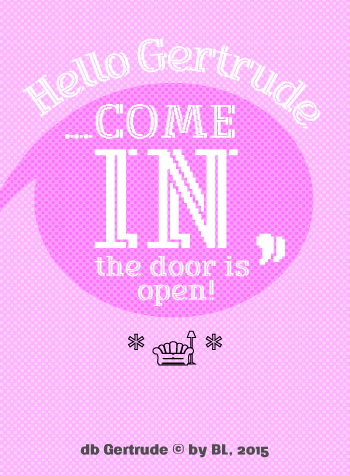
I just love what you did with this.
Nice pixel work.
Congratulations! FontStruct Staff have deemed your FontStruction worthy of special mention. “db Gertrude” is now a Top Pick.
Elegant 3d work, beautifully crafted, pixel by pixel overshoots and all.
Very fancy work! I especially like the @.
Nice inline serif. Unfortunately, it does not work as a pixel font, because half of the glyphs are blurry at pixel view. From the capitals: C,E,G,I,K,M,O,Q,S,U,W,X are razor sharp, the others have some degree of blur. I think, there is an easy fix: set the SPACING to positive integer, not fraction.
Even with this glitch, it is hard to miss the effortless elegance of your design. Congratulations for the extended Latin set and the ligatures. 10/10